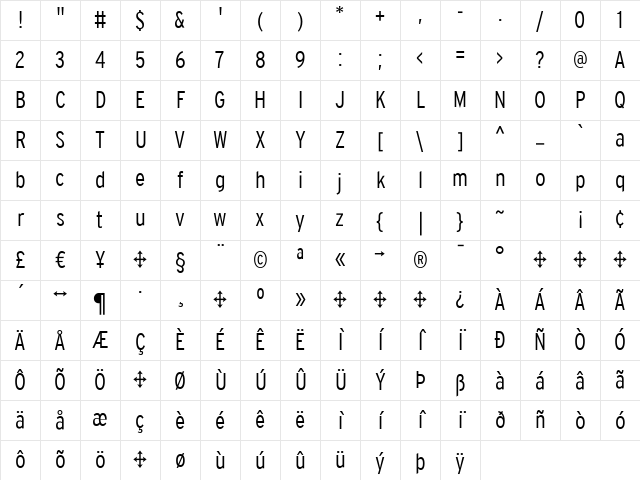
InterstatePlus Light Free Font
InterstatePlus Light
Foundry: Tobias Frere-Jones. Designed by Tobias Frere-Jones. Produced by The Font Bureau, Inc
Design Context for InterstatePlus
InterstatePlus is a composed and adaptable typeface that performs quietly and consistently across a wide range of design contexts. Its slender proportions lend an understated elegance to any composition.
Who designed the InterstatePlus Light font?
This font was published by Tobias Frere-Jones. Designed by Tobias Frere-Jones. Produced by The Font Bureau, Inc. Check the technical specs section for copyright and designer details.